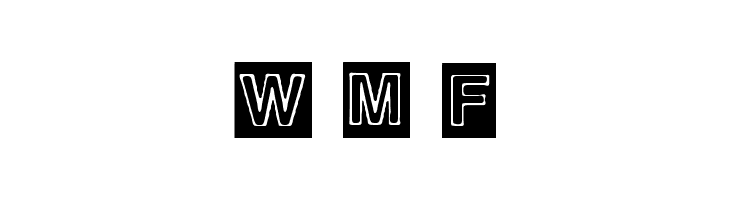
• Albret
( Fonts by Mr. Typeman )
A modern, cursive font with smooth, interconnected strokes and a handwritten feel.
• AlbretDemo
• Album Filled Regular
A bold, decorative font with a three-dimensional, layered effect.
• Album Regular
A bold, geometric font with a three-dimensional outline and shadow effect.
• ALBURA Regular
( Virgilio Cortez - www.behance.net/vcortezstudio )
A bold, flowing script font with dynamic, interconnected strokes.
• Alburquerque
( www.woodcutter.es )
A bold, outlined font with a modern and decorative style.
• Alburquerque
A bold, outlined font with a modern and geometric style.
• ALCATRAZ
• Alche Monogram Regular
An elegant monogram font with decorative wreath frames around each letter.
• AlchemeoBold
• Alchemy
( Fonts by Kenneth Hirst )
A collection of intricate alchemical symbols with historical significance.
• Alcohol
Alcohol-themed pictogram display font with bold, illustrative icons.
• Alcohol Regular
A bold, geometric font with a three-dimensional layered effect, ideal for striking headlines.
• Alcoholic Extravagant Regular
A bold, decorative font with geometric and intricate designs.
• Alcoholic Italic
A bold, decorative font with intricate geometric patterns and artistic flair.
• Alcoholic Regular
A bold, decorative font with intricate geometric patterns and concentric lines.
• Aldebaran
An elegant and intricate script font with flowing, interconnected letterforms.
• Aldebaran_PersonalUseOnly
An elegant script font with ornate uppercase and flowing lowercase letters.
• Aldo Dattoli
• Aldo Open
• Aldo SemiBold
A modern, geometric font with clean lines and rounded edges.
• Aldrich